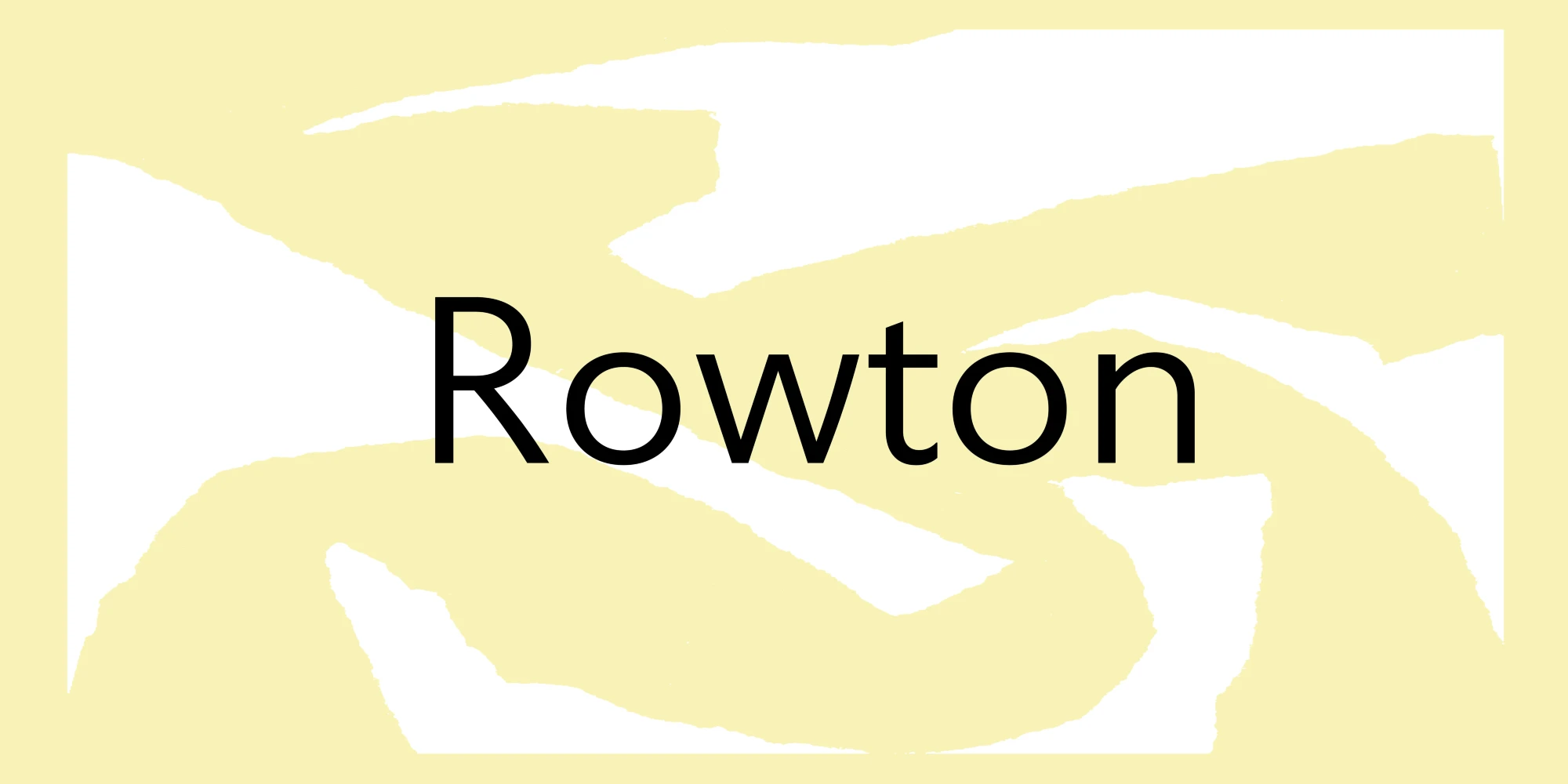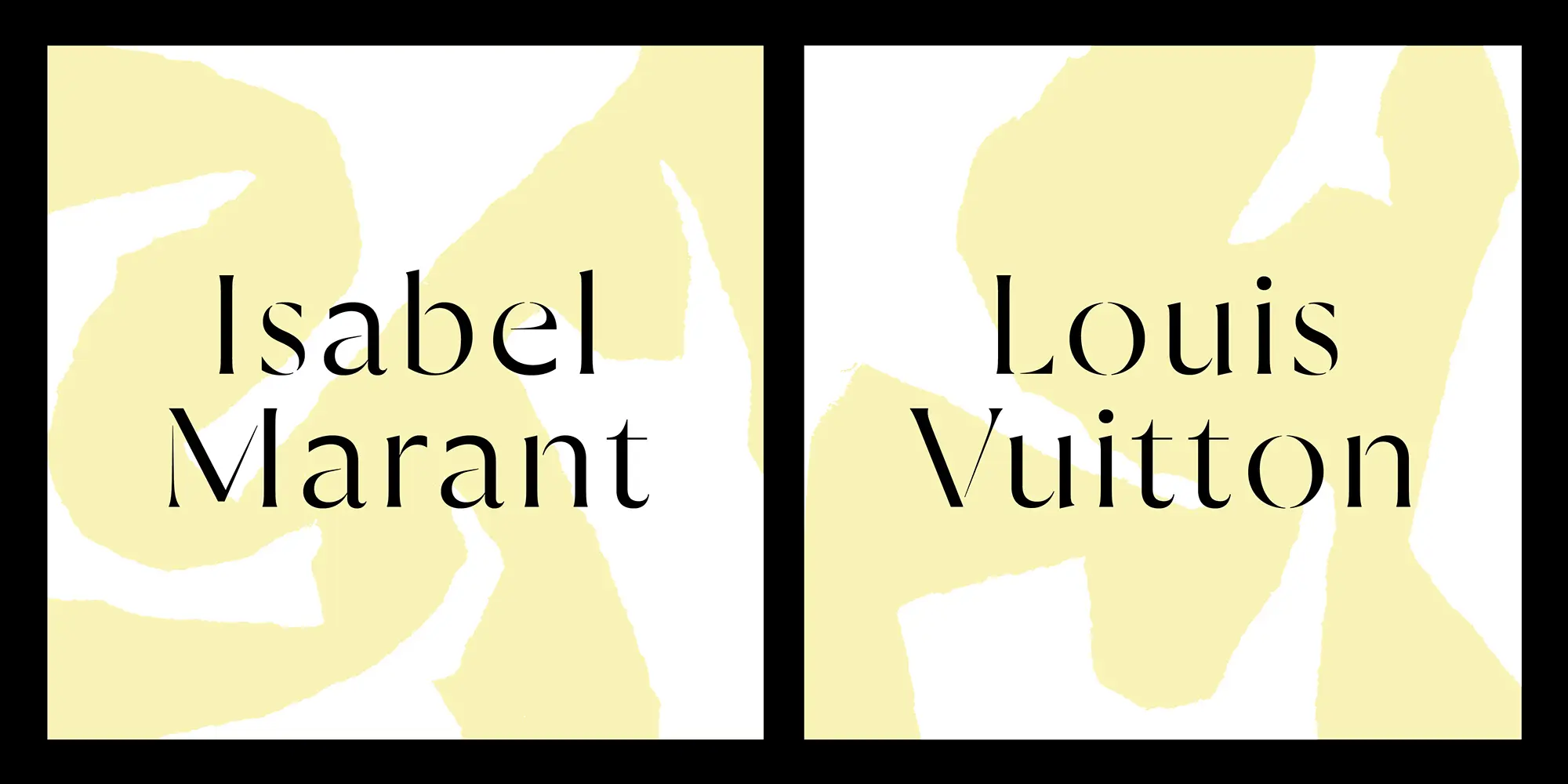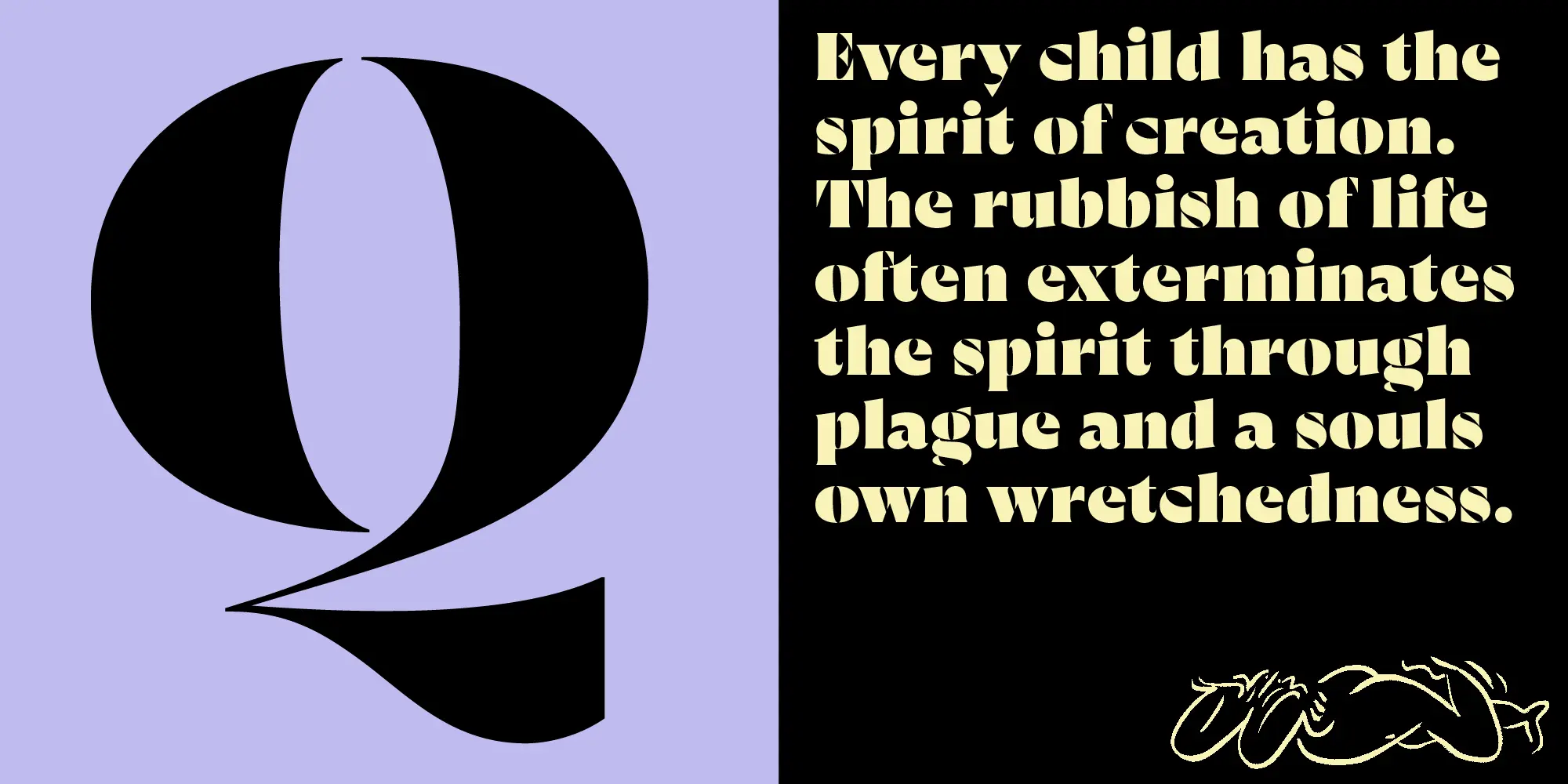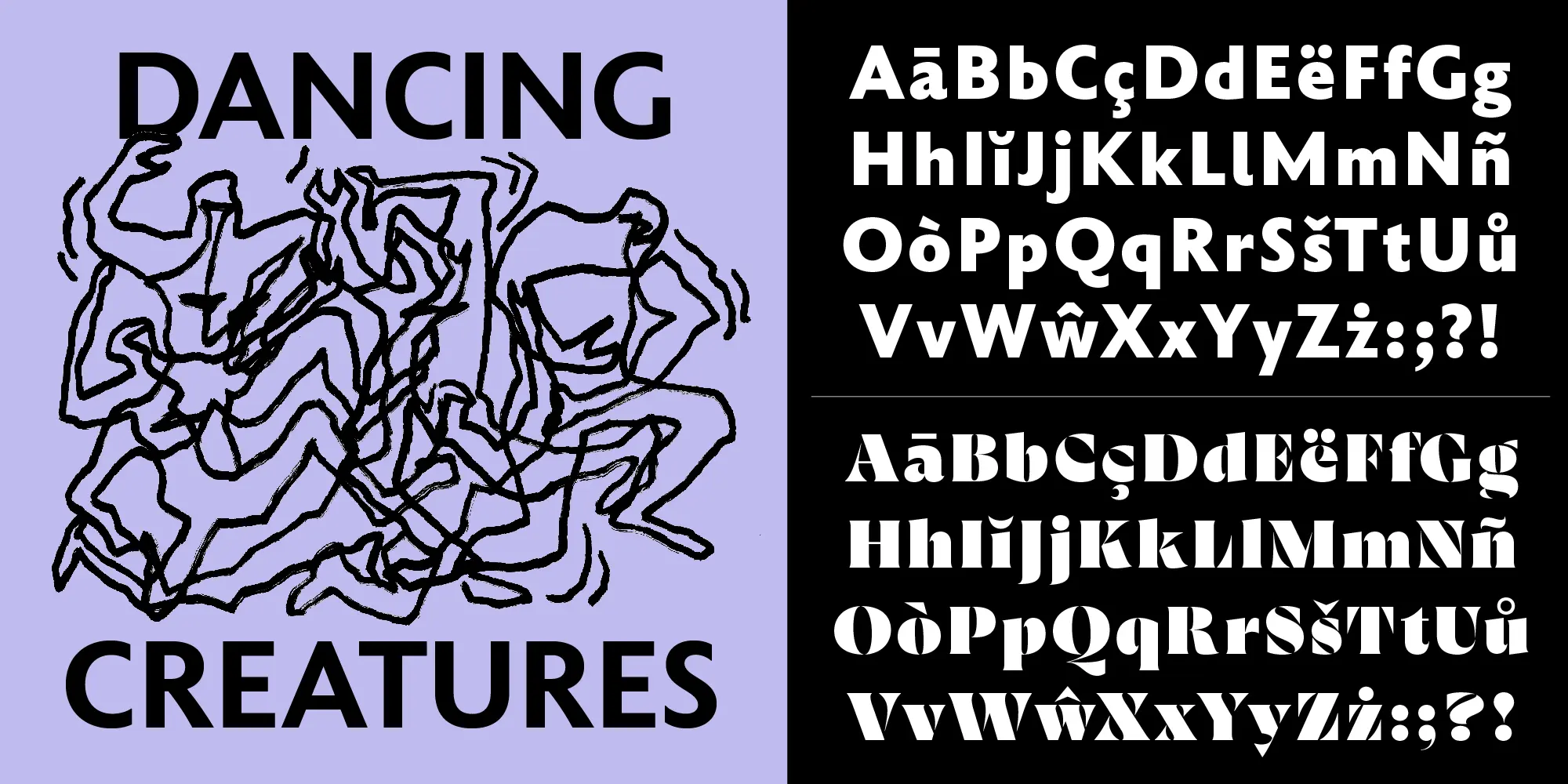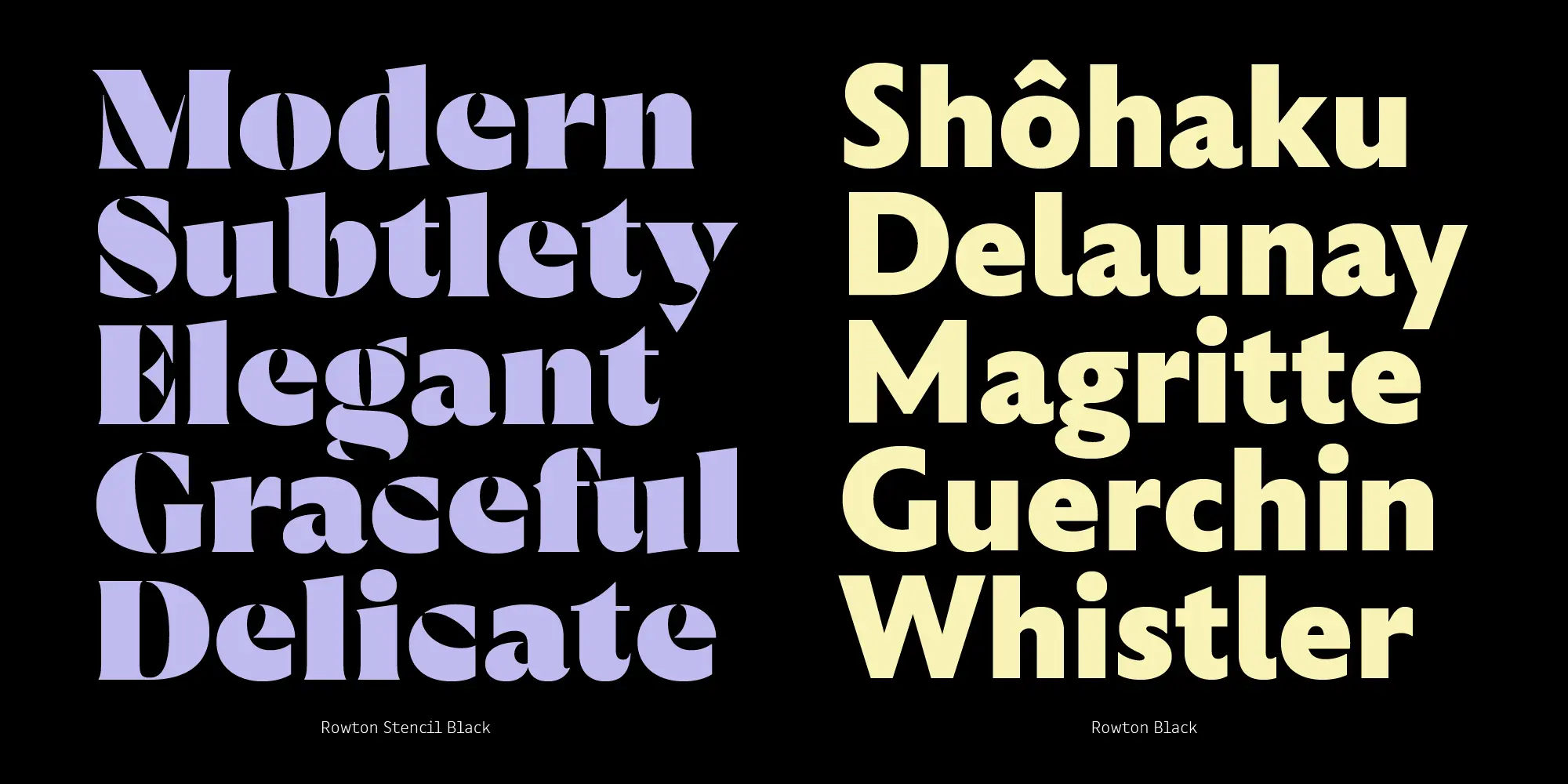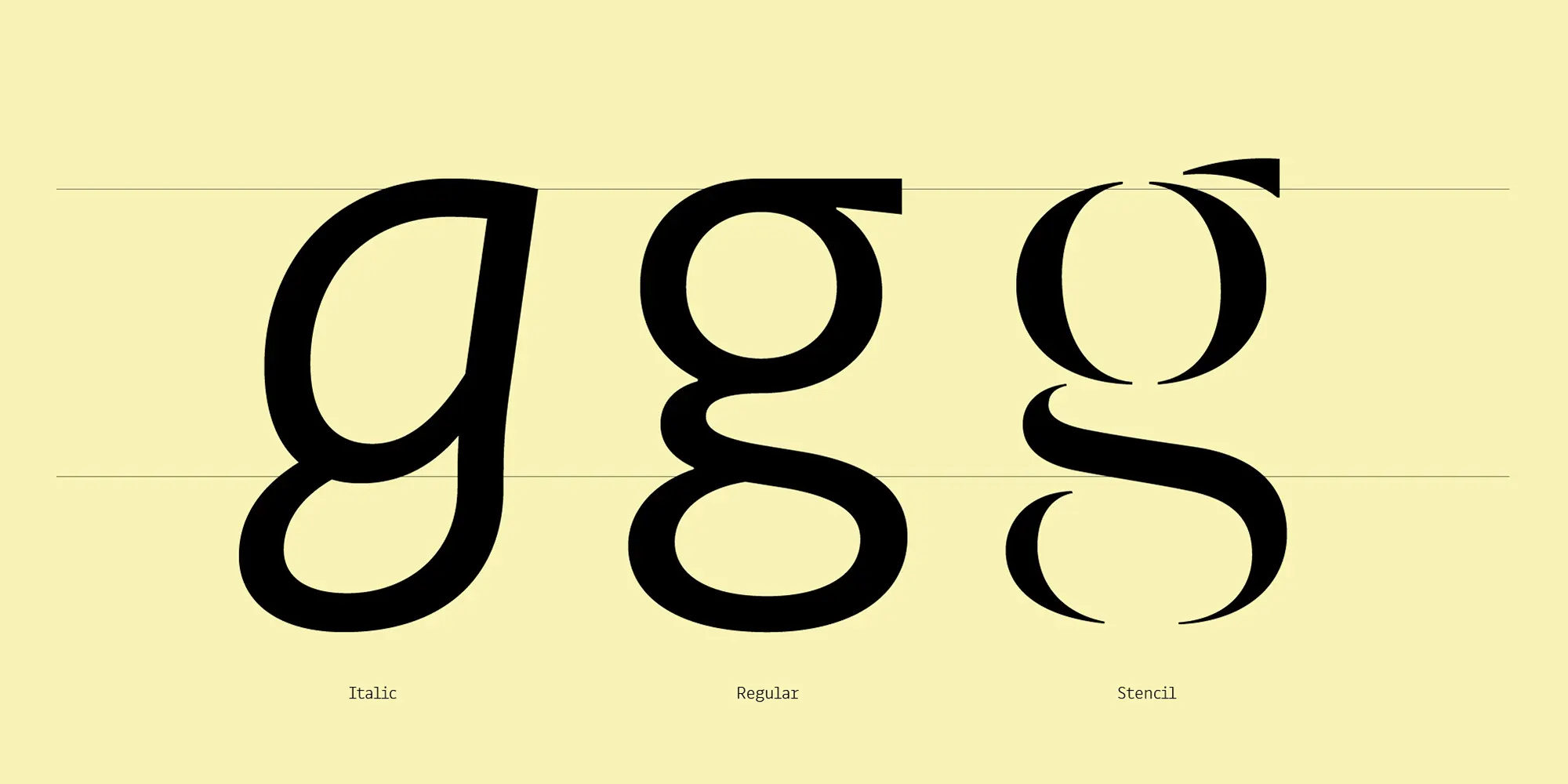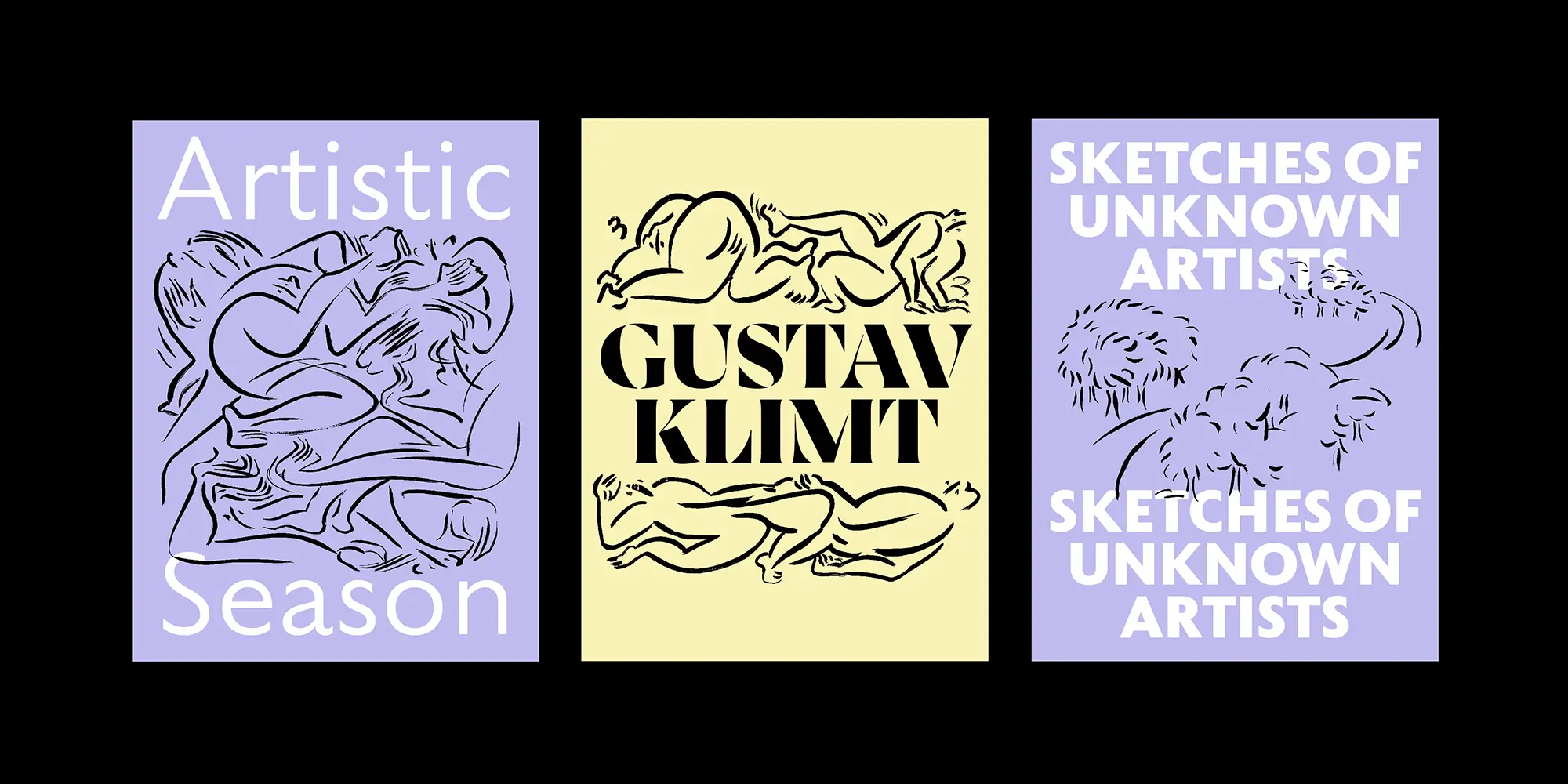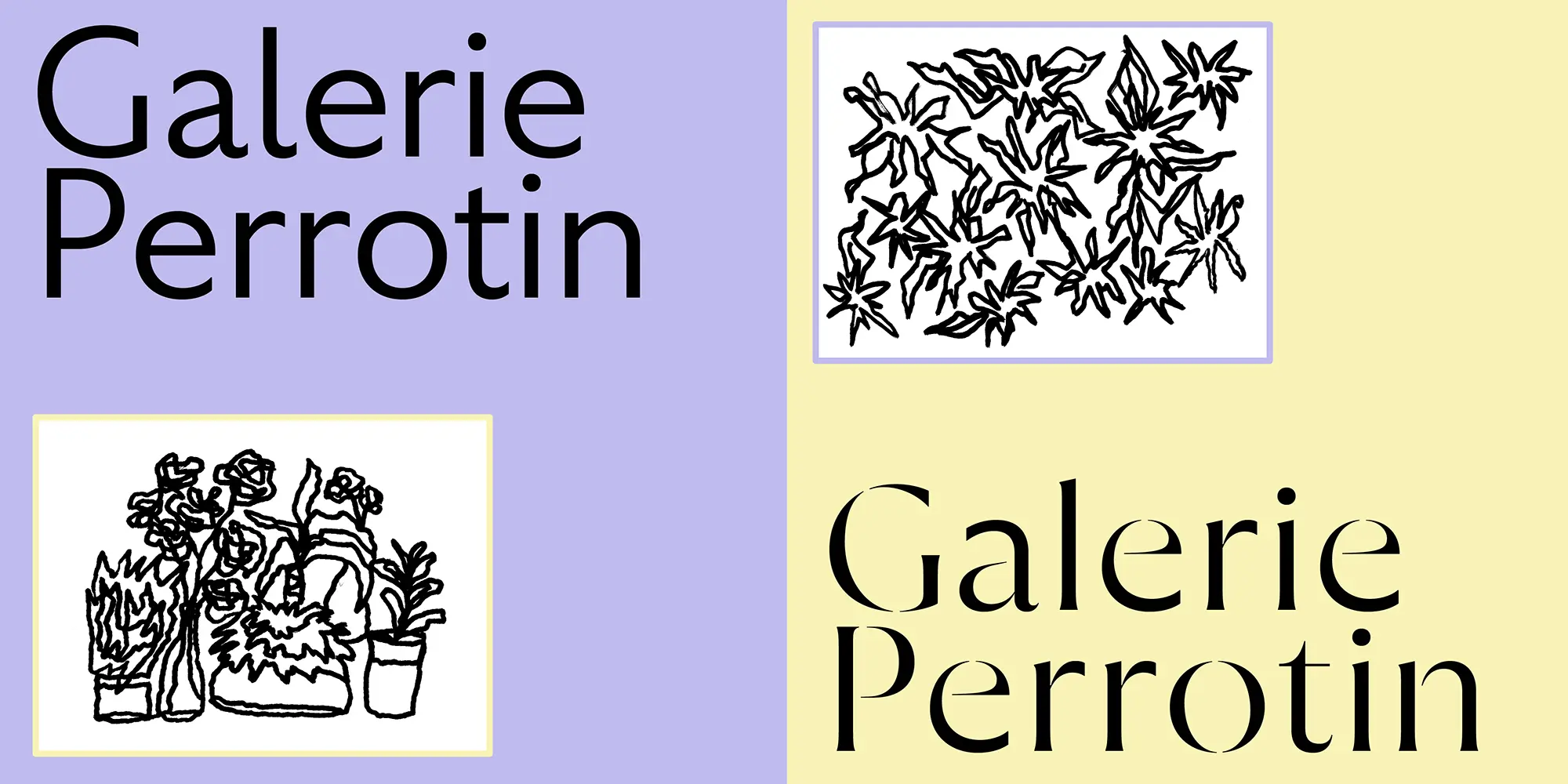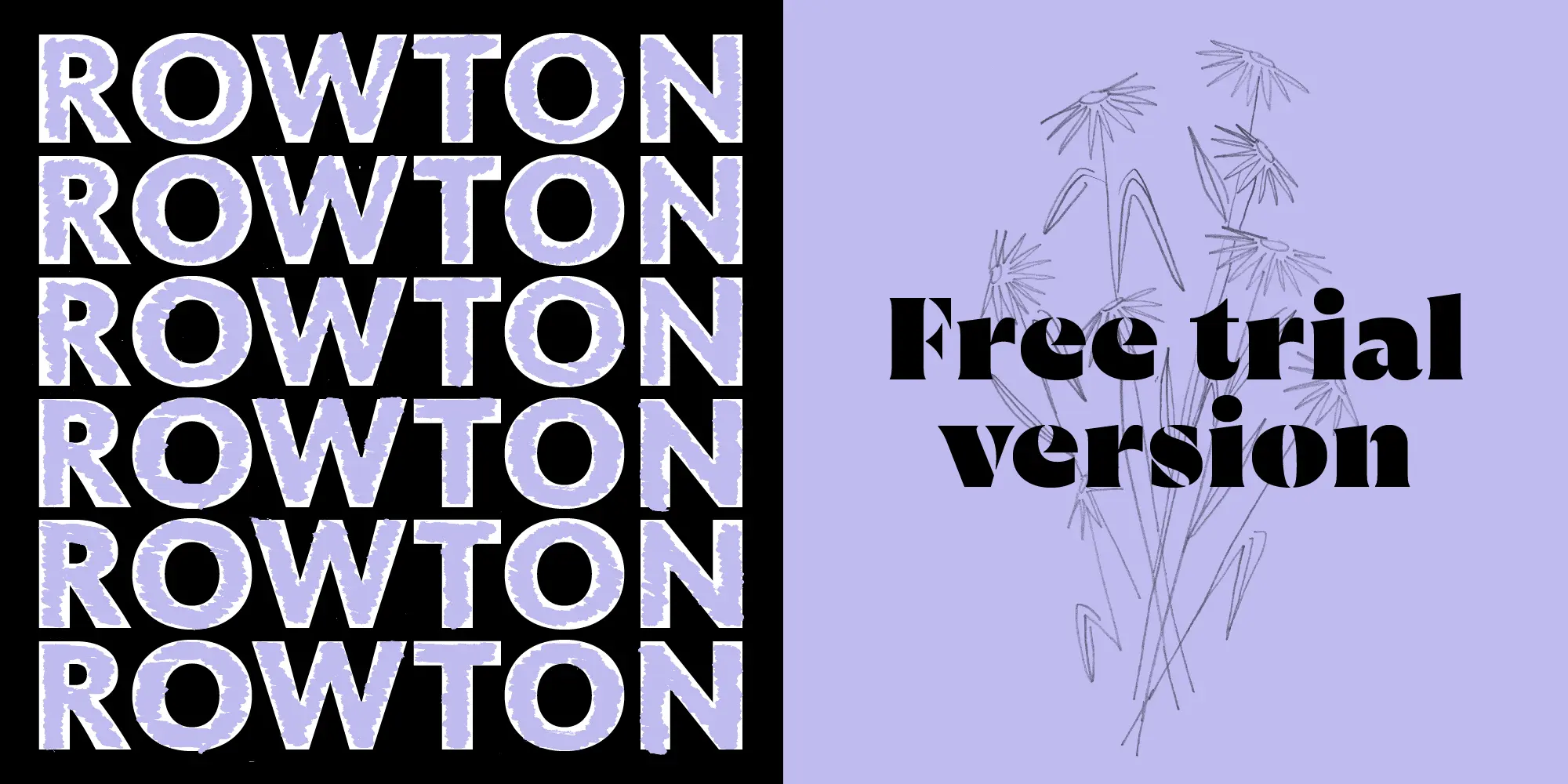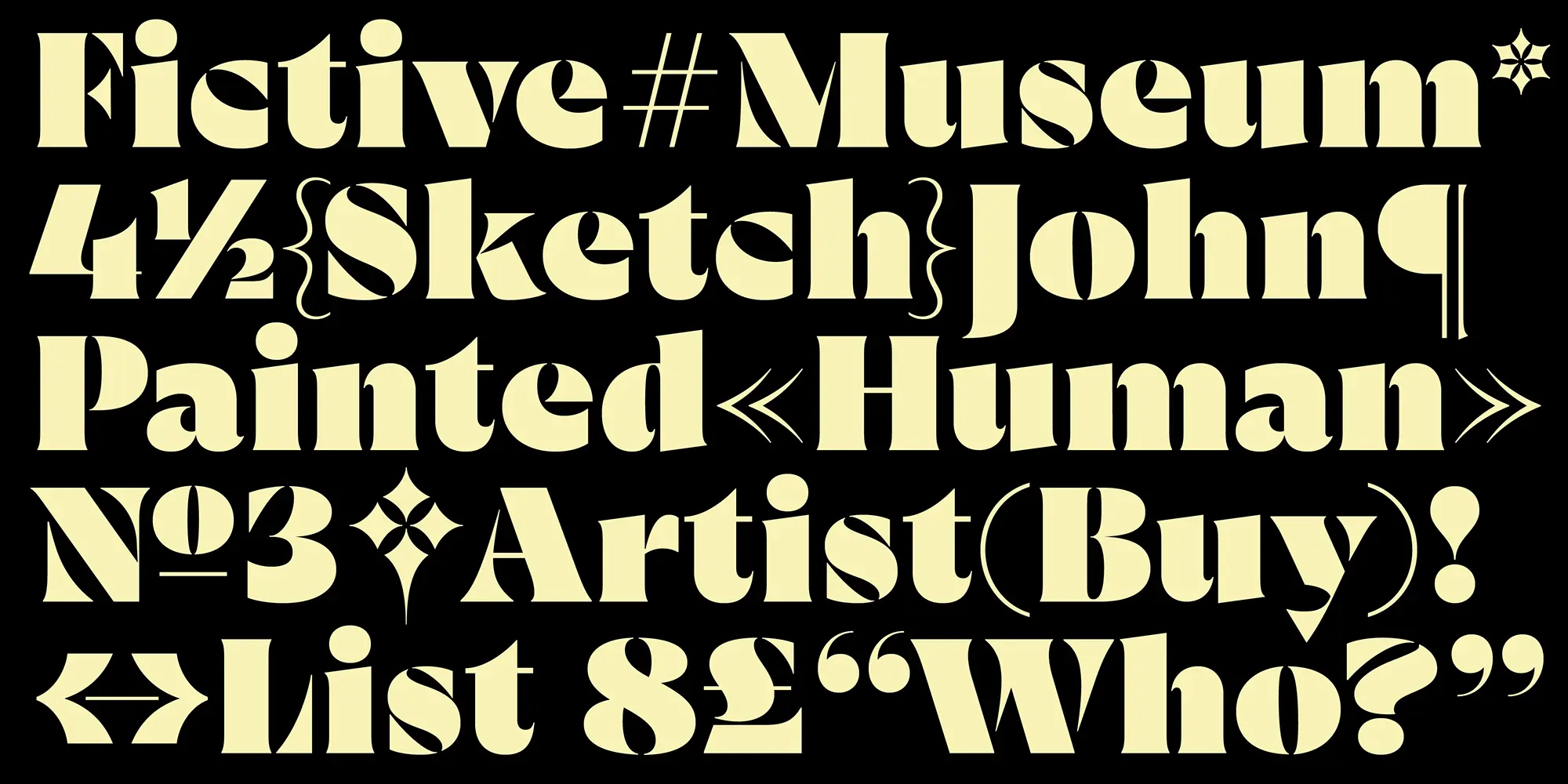
Rowton Font Family
Rowton explores Humanist type design through three categories: upright sans, italic sans, and seriffed stencil weights. Collecting these diverse forms in one family highlights how seamlessly they mix within layouts. Inspired by Eric Gill, Rowton builds on his typeface while preserving its lively expressiveness, offering versatility for editorial, branding, and more. Each style of Rowton has six weights from Hairline to Black, plus matching italics, or as two variable fonts.
Ligatures
Stylistic Set 1
Fractions
Oldstyle Figures
Tabular Figures
Ordinals
Scientific Inferiors
Superscript
Subscript
Numerators
Denominators
Case-Sensitive Forms
Features
OpenType Features
- Common Ligatures
- Fractions
- Lining Numerals
- Old Style Numerals
- Ordinal Numerals
- Proportional Numerals
- Stylistic Sets
- Subscript
- Superscript